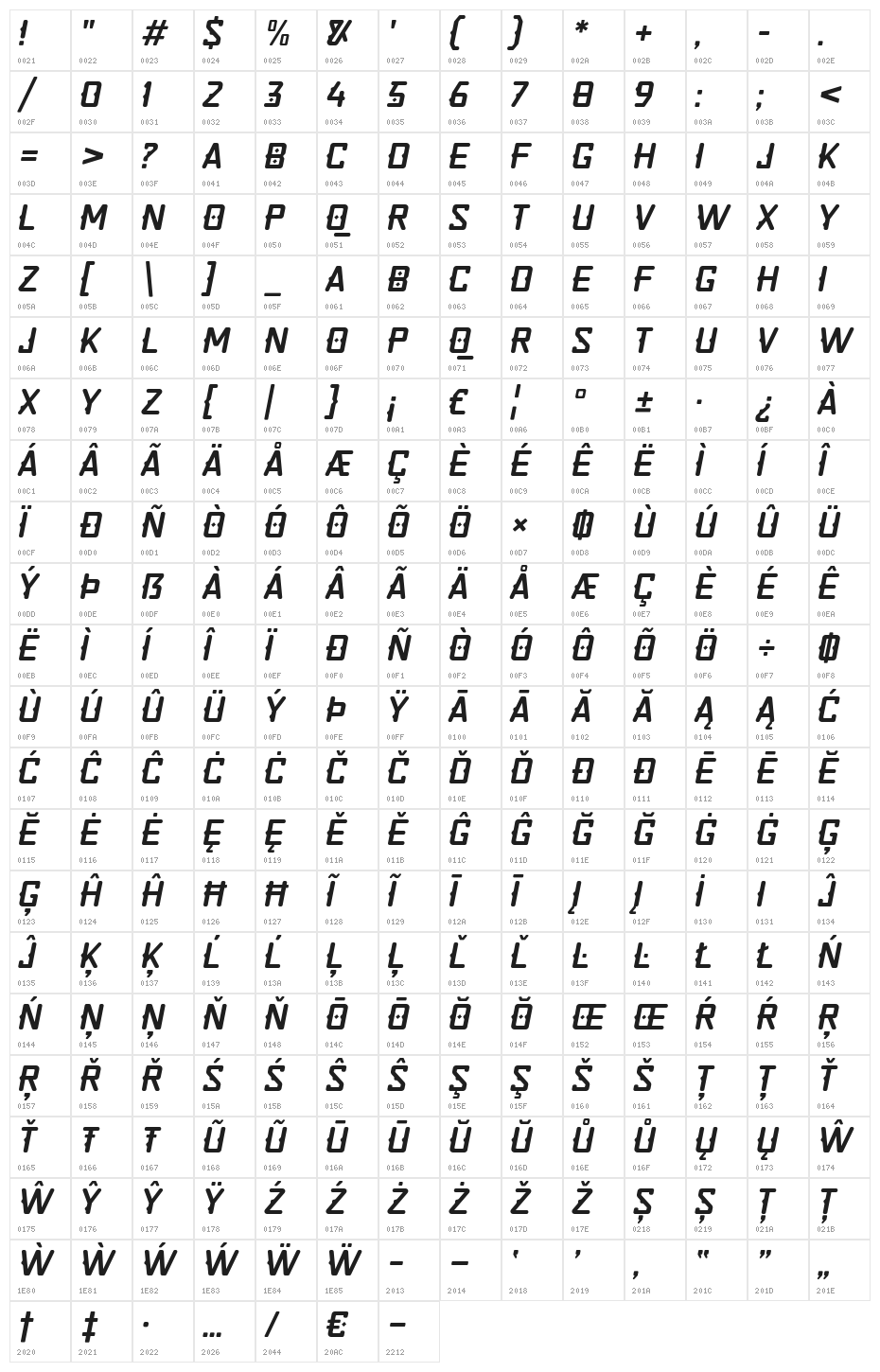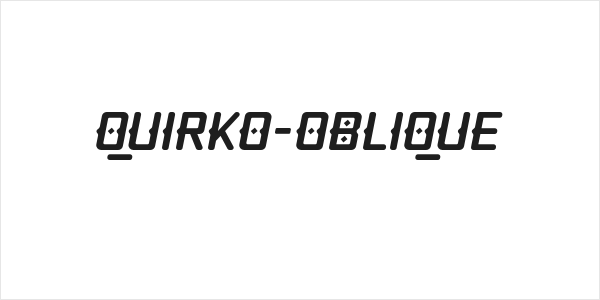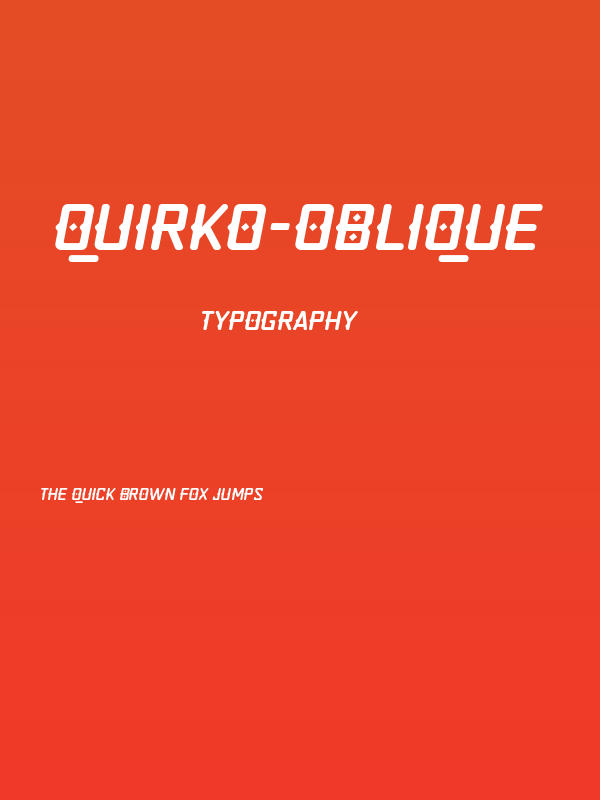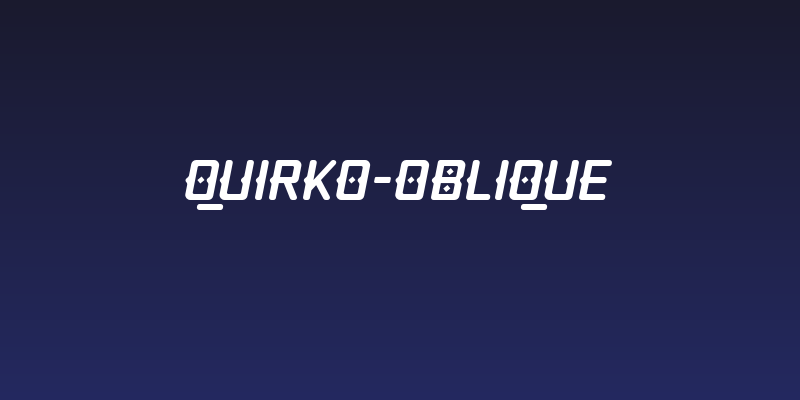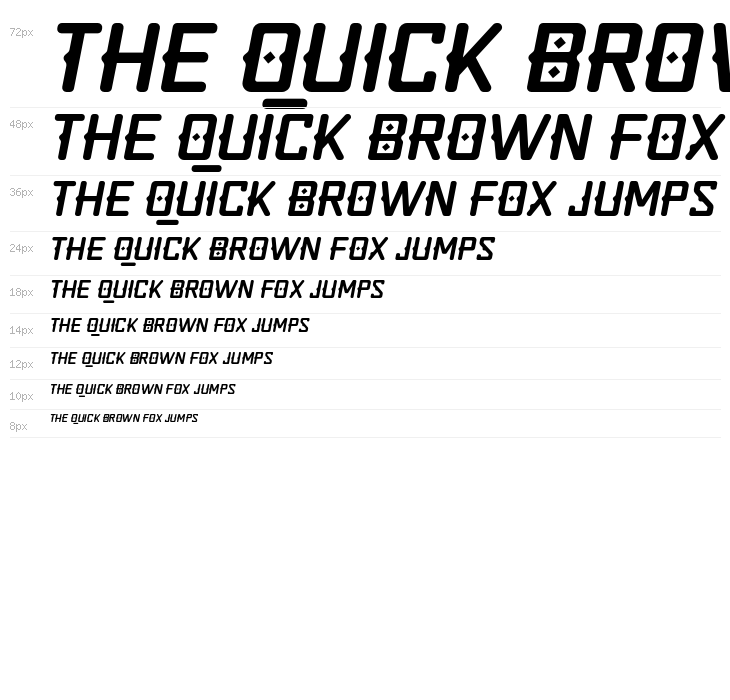
Quirko-Oblique Font
Quirko-Oblique Description
This font features a bold, geometric style with a distinct oblique slant, giving it a dynamic and modern appearance. The characters are constructed with clean, straight lines and sharp angles, creating a sense of movement and energy. The uppercase and lowercase letters maintain a consistent style, with the uppercase being slightly more pronounced. Numbers and special characters follow the same design principles, ensuring uniformity across all glyphs. The font's unique style makes it suitable for projects that require a contemporary and edgy look.
Proposed ProjectsIdeal for branding, sports team logos, tech-related designs, and modern advertising campaigns.